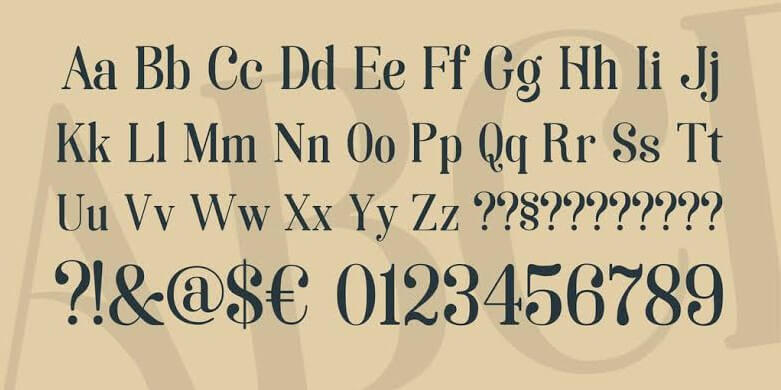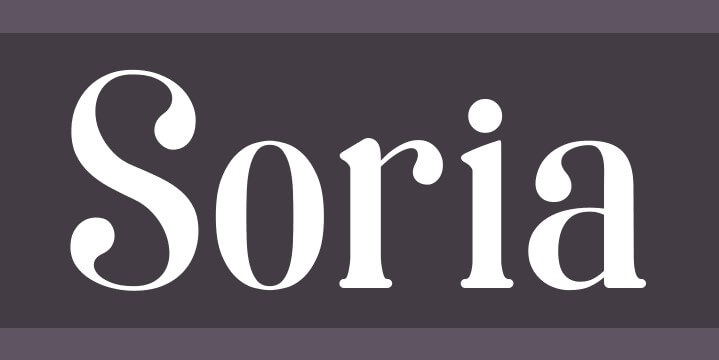
Soria Serif Font
Soria Serif Font is a modern serif font with an elegant design. It’s excellent for designing playing cards, trademarks, internet site headers, and banner for professional works.
Style of Soria Serif Font Free